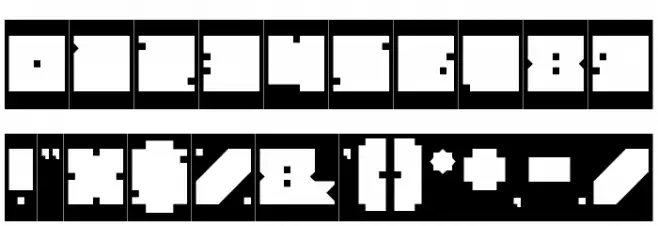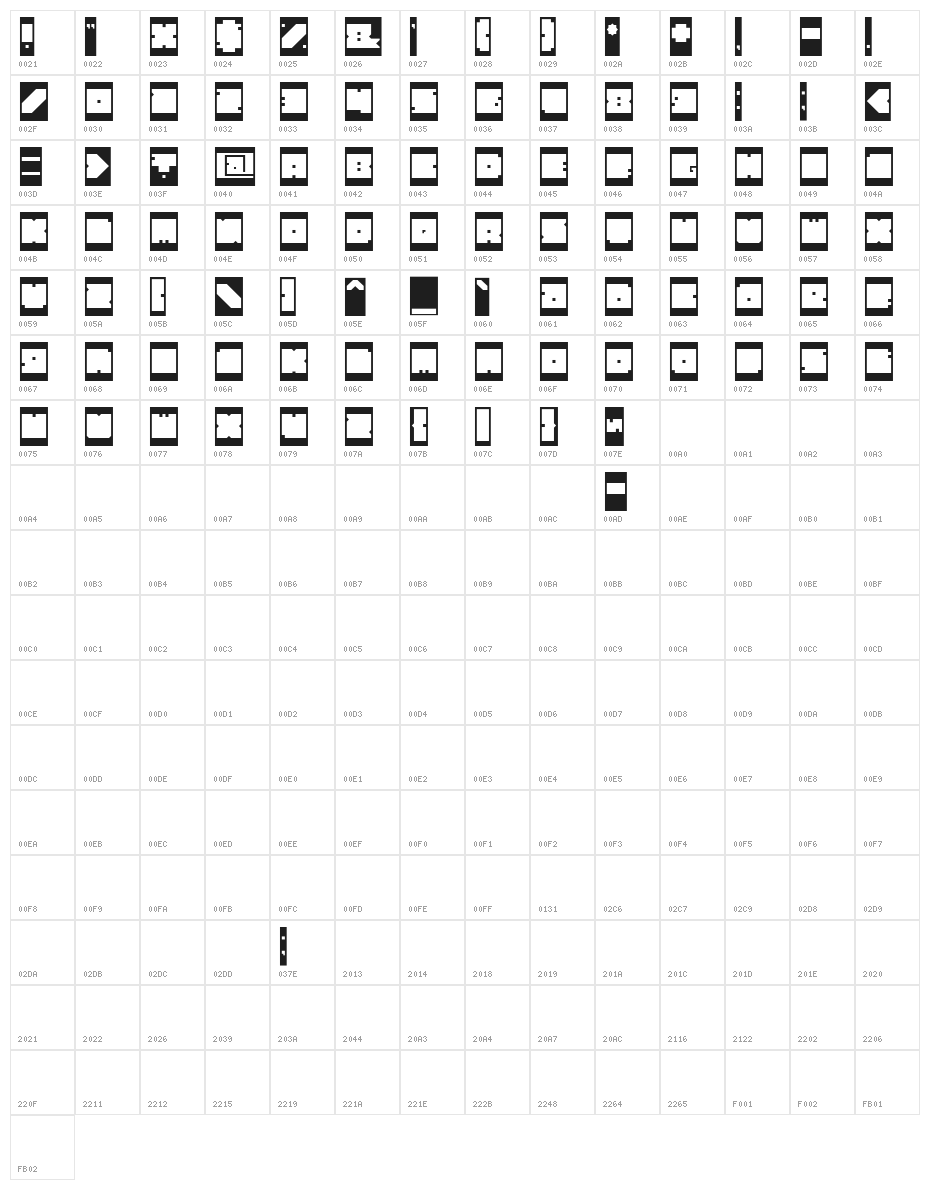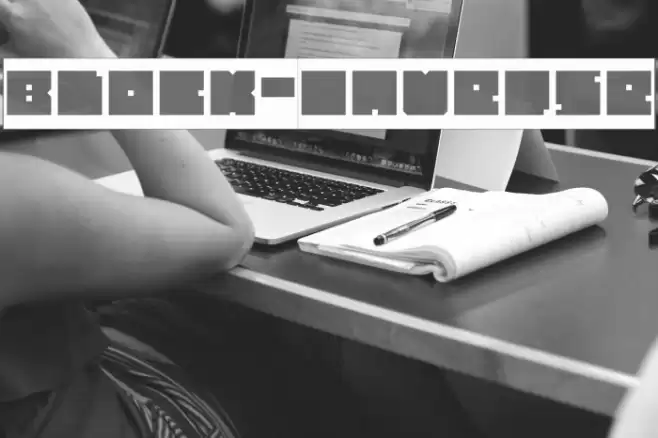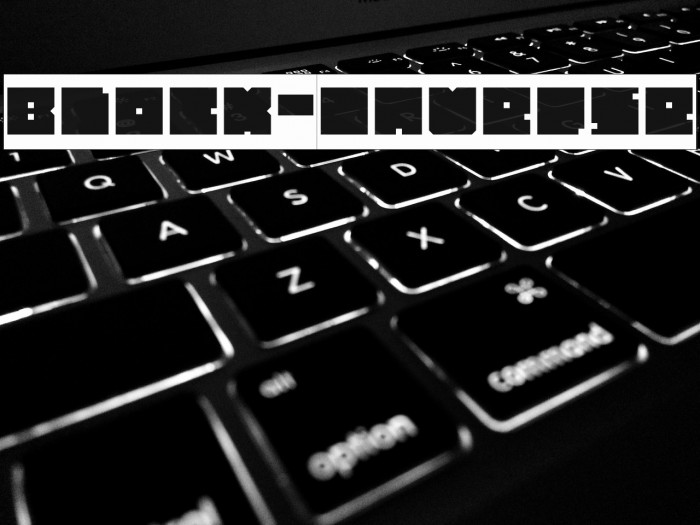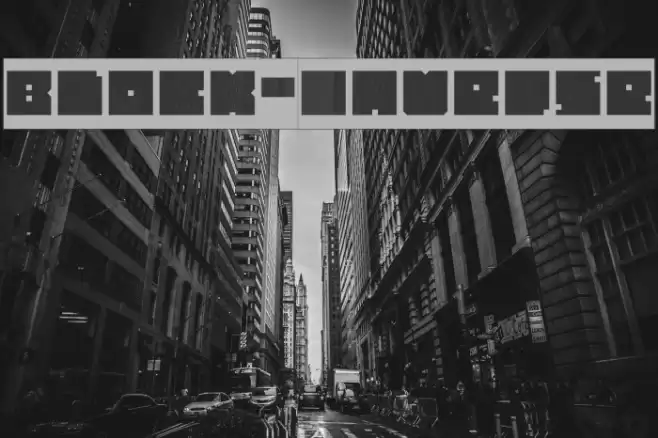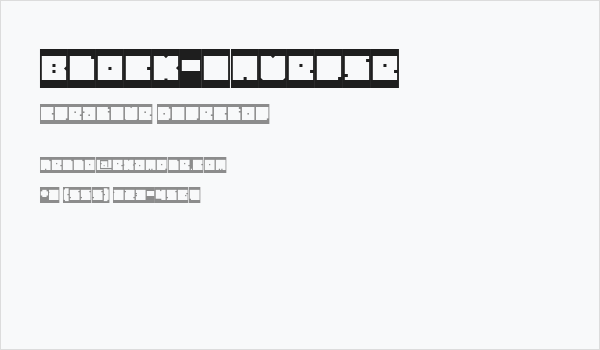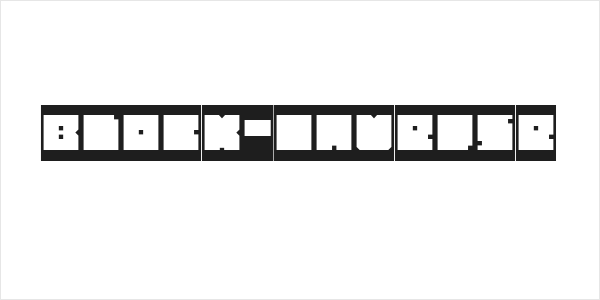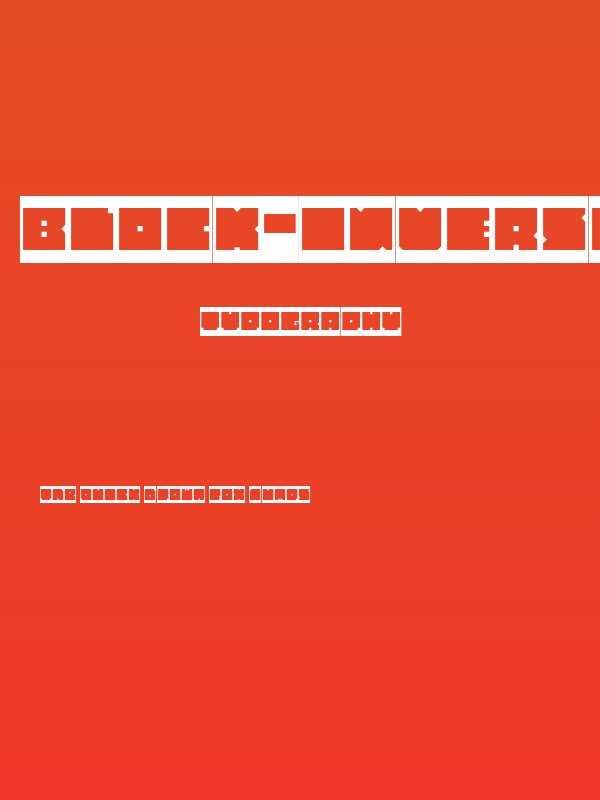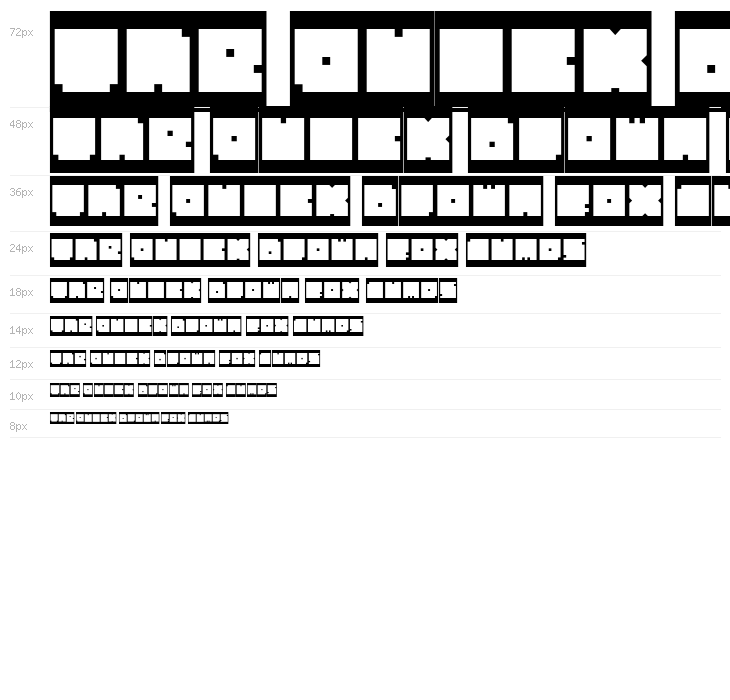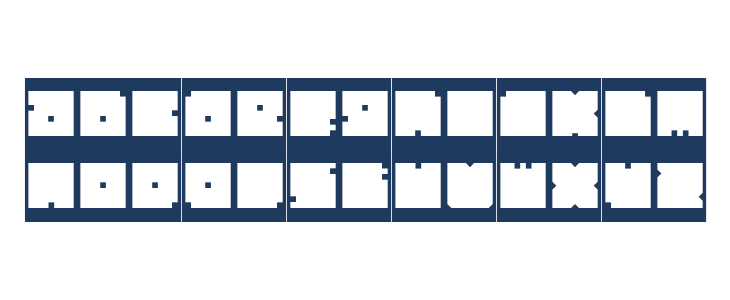
BLOCK-Inverse Font
BLOCK-Inverse Description
This font features a bold, blocky style with a unique inverse design where the characters are formed by the absence of color within solid black squares. The letters and numbers are highly geometric, with sharp angles and a consistent thickness throughout. The special characters maintain the same blocky aesthetic, ensuring uniformity across the entire set. This font is visually striking and demands attention, making it ideal for impactful designs.
Proposed ProjectsIdeal for poster designs, video game graphics, and branding that requires a strong, modern look.